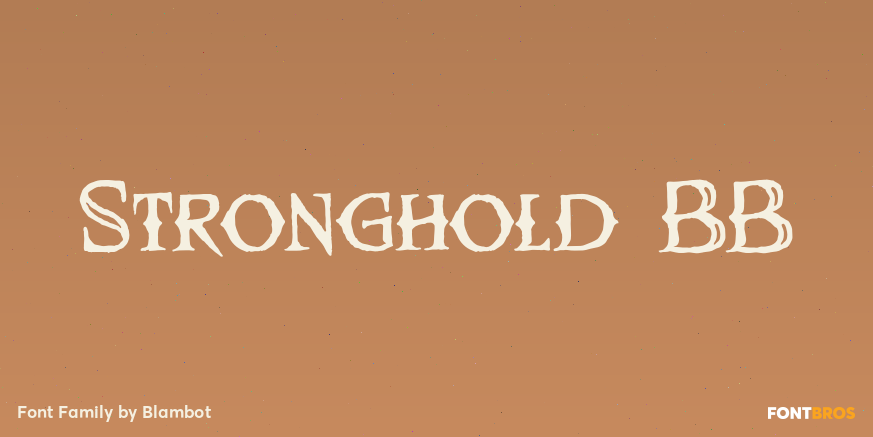
Fill the moat and sharpen your spears! It\’s time to defend the keep against orcs! Comes with Regular and Deco and has a large complement of European characters.